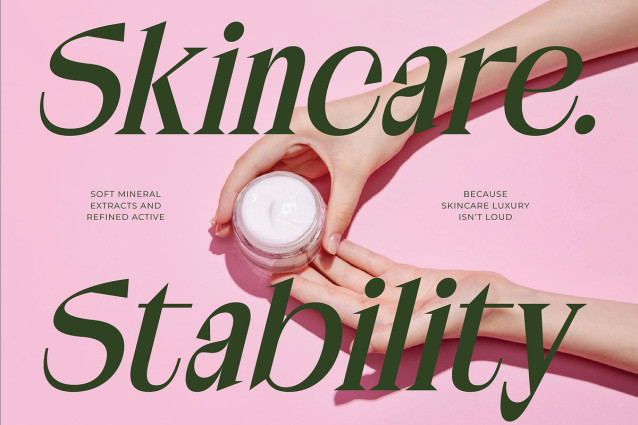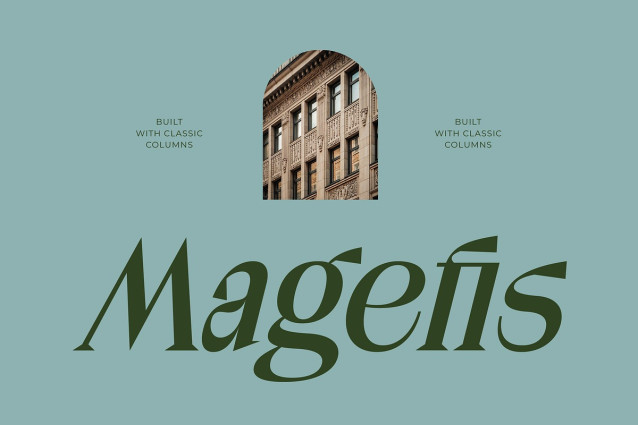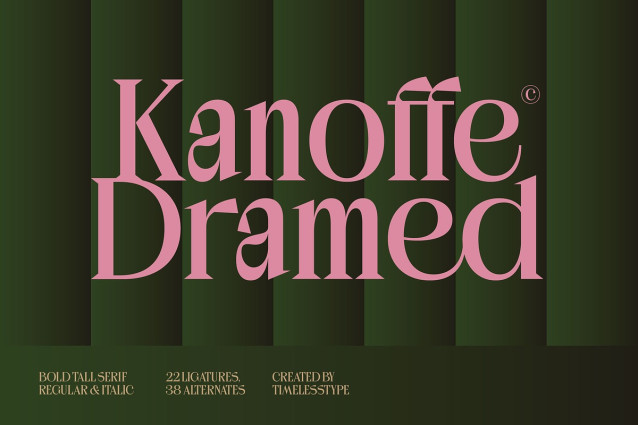
Kanoffe Dramed Font
Kanoffe Dramed Font is a bold tall-serif typeface that blends modern elegance with strong editorial presence. Its sharp contrast, elongated proportions, and sculpted serif forms create a confident and luxurious aesthetic—perfect for branding, fashion headlines, magazine layouts, packaging, boutique identity work, and premium logo design.
With 22 ligatures and 38 alternates, Kanoffe Dramed gives designers the flexibility to craft sophisticated typography with expressive character variations. The font’s stylish curves and refined vertical stance add a high-end, cinematic feel, ideal for projects that demand both impact and refinement. Whether used in minimalist layouts or bold artistic compositions, Kanoffe Dramed elevates every design with its timeless prestige.